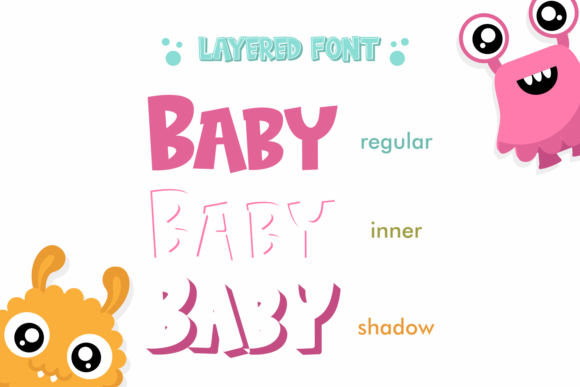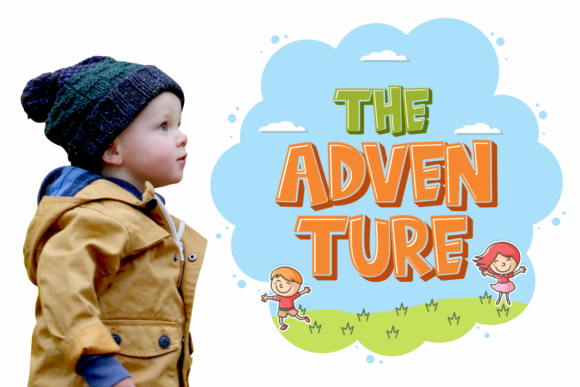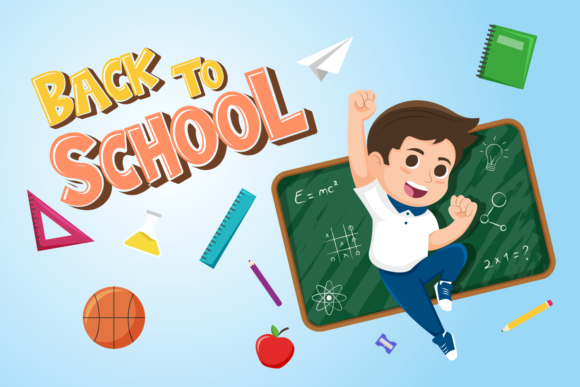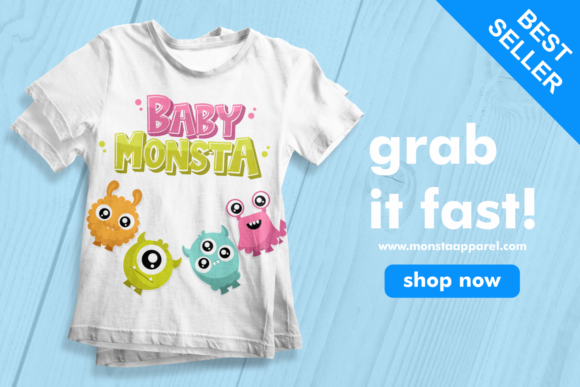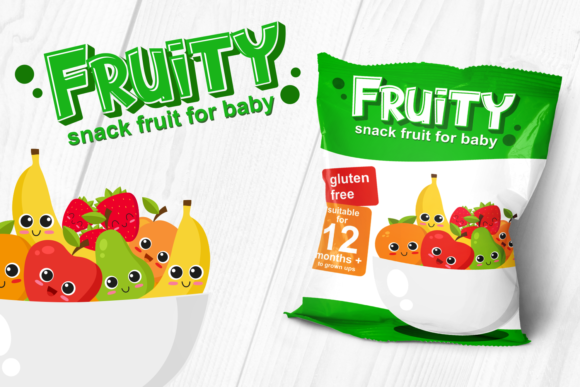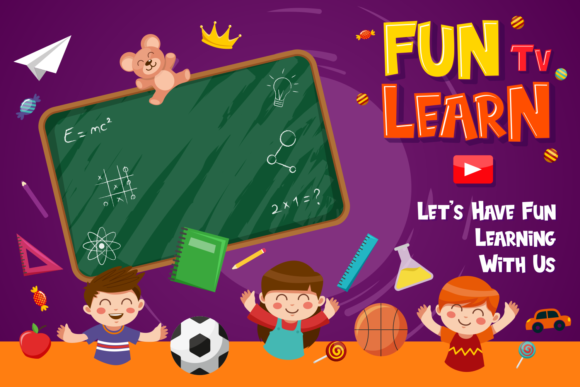
Baby Monsta Font: The Ultimate Display Font for Creative Projects
Are you looking for a font that can add a touch of childlike playfulness to your designs? Look no further than the Baby Monsta Font! This unique display font is perfect for headlines, blocks of text, and various creative projects. In this article, we’ll explore the features and benefits of Baby Monsta Font, and how you can use it to brighten up your designs.
What is Baby Monsta Font?
Baby Monsta Font is a distinctive display font designed to make a statement. Its unique style is characterized by its childlike playfulness, making it perfect for designs that require a fun and youthful approach. The font is best suited for headlines of all sizes, as well as for blocks of text that have both maximum and minimum variations.
Key Features of Baby Monsta Font
• Unique Display Font: Baby Monsta Font is a one-of-a-kind display font that can add a touch of personality to your designs.
• Childlike Playfulness: The font’s playful style is reminiscent of a child’s handwriting, making it perfect for designs that require a fun and youthful approach.
• Versatile: Baby Monsta Font can be used for headlines, blocks of text, and various creative projects, including kids and school projects.
• Maximum and Minimum Variations: The font can be used for blocks of text with varying font sizes, making it perfect for designs that require a dynamic approach.
Benefits of Using Baby Monsta Font
Baby Monsta Font offers several benefits for designers and crafters, including:
• Easy to Read: Despite its playful style, Baby Monsta Font is easy to read, making it perfect for designs that require a fun and engaging approach.
• Customizable: The font can be customized to fit your design needs, including adjusting font size, color, and style.
• Time-Saving: Baby Monsta Font can save you time and effort in designing your projects, as it provides a unique and playful style that can be used across various designs.
Creative Uses for Baby Monsta Font
Baby Monsta Font can be used for a variety of creative projects, including:
• Kids and School Projects: The font is perfect for kids and school projects, such as posters, flyers, and presentations.
• Party Invitations: Use Baby Monsta Font to create fun and playful party invitations that will set the tone for your event.
• Social Media Graphics: The font can be used to create engaging social media graphics, such as Facebook posts, Instagram stories, and Twitter headers.
• Branding and Packaging: Baby Monsta Font can be used for branding and packaging designs that require a fun and youthful approach.
Tips for Using Baby Monsta Font
Here are some tips for using Baby Monsta Font effectively:
• Use it Sparingly: Use Baby Monsta Font sparingly to avoid overwhelming your design. Use it for headlines or key phrases to add emphasis.
• Pair it with Other Fonts: Pair Baby Monsta Font with other fonts to create a unique and dynamic design.
• Experiment with Colors: Experiment with different colors to find the perfect combination that works with your design.
In conclusion, Baby Monsta Font is a unique display font that can add a touch of childlike playfulness to your designs. Its versatility, readability, and customizability make it perfect for various creative projects, including kids and school projects, party invitations, social media graphics, and branding and packaging designs. With these tips and benefits, you can use Baby Monsta Font to brighten up your designs and make them stand out.